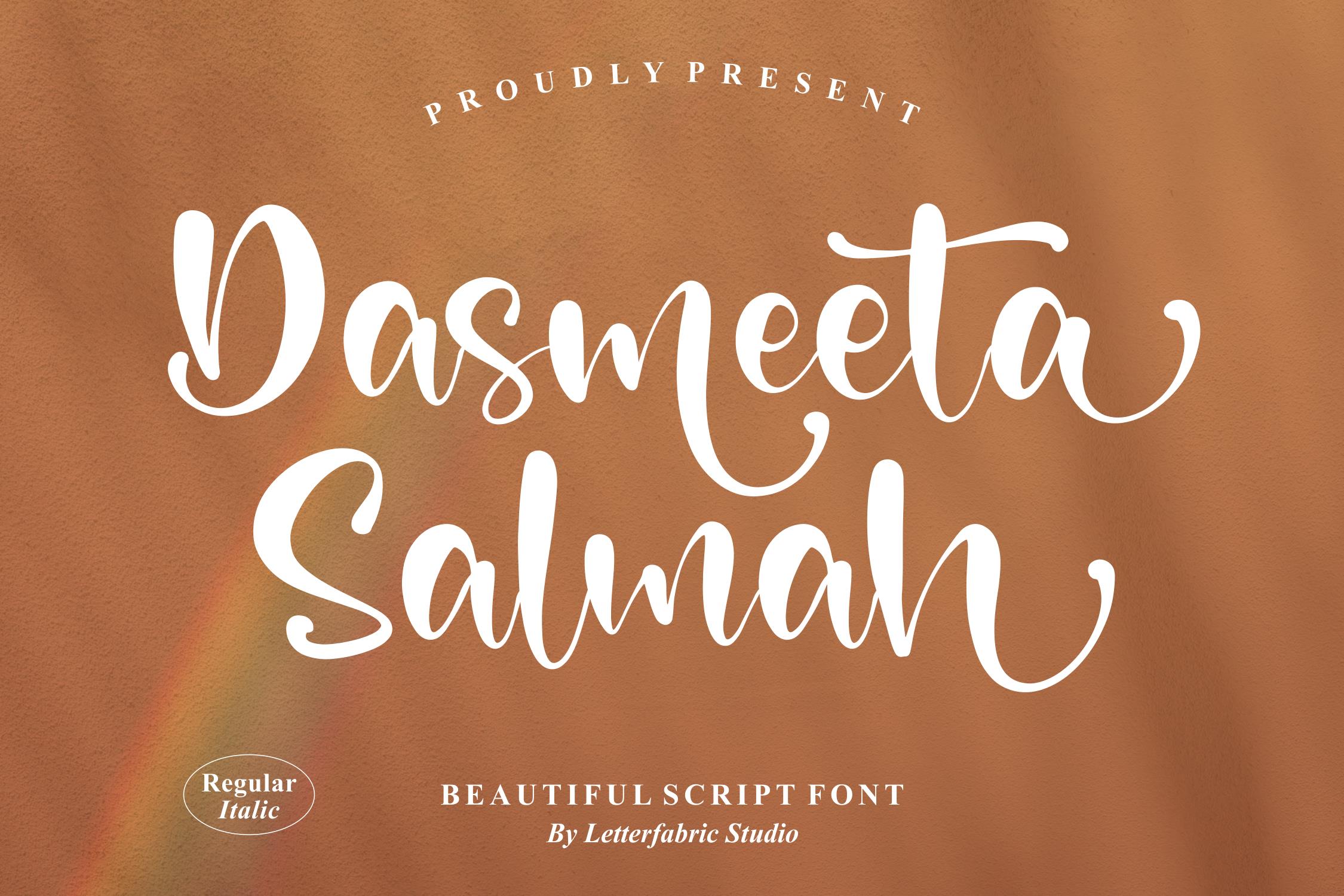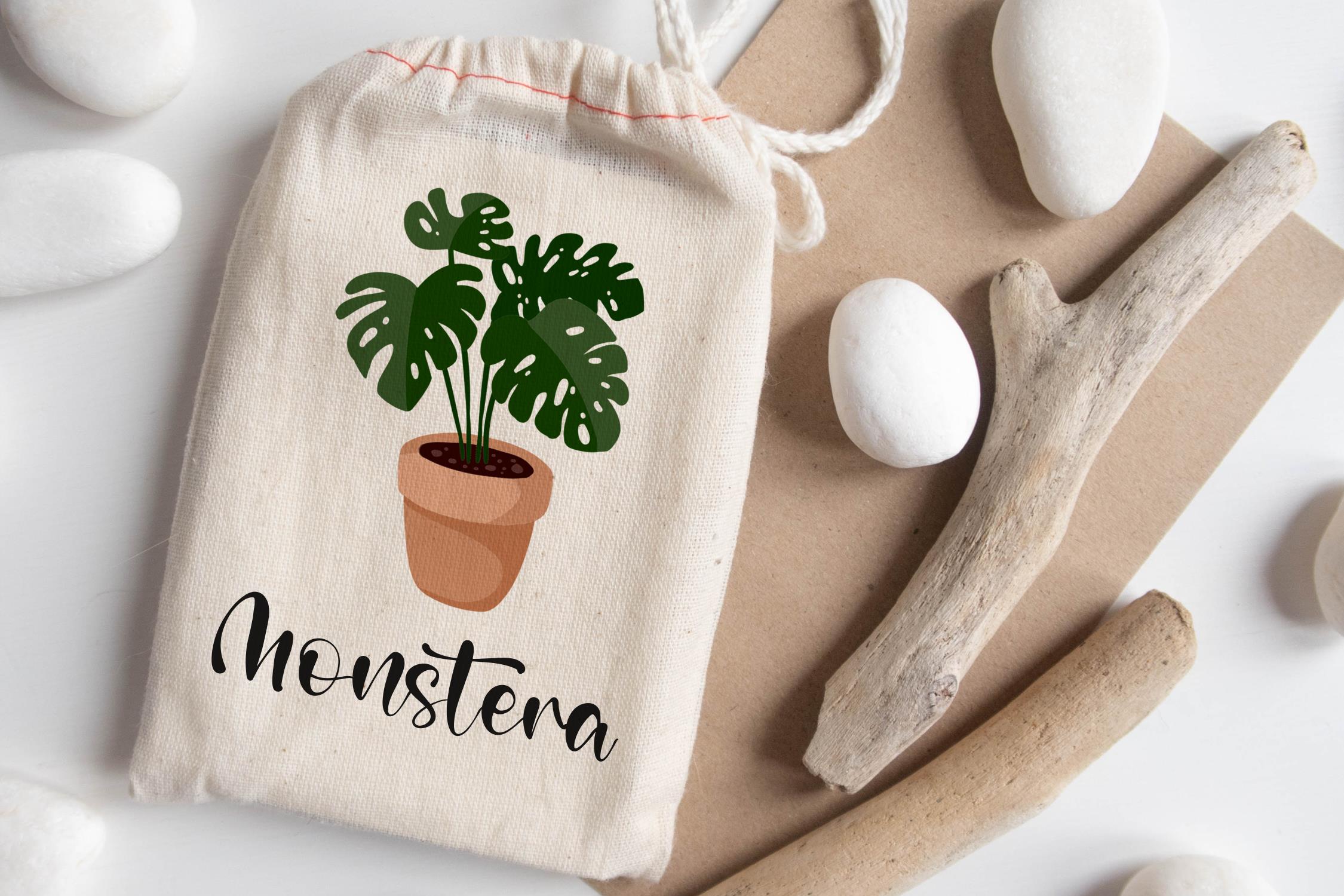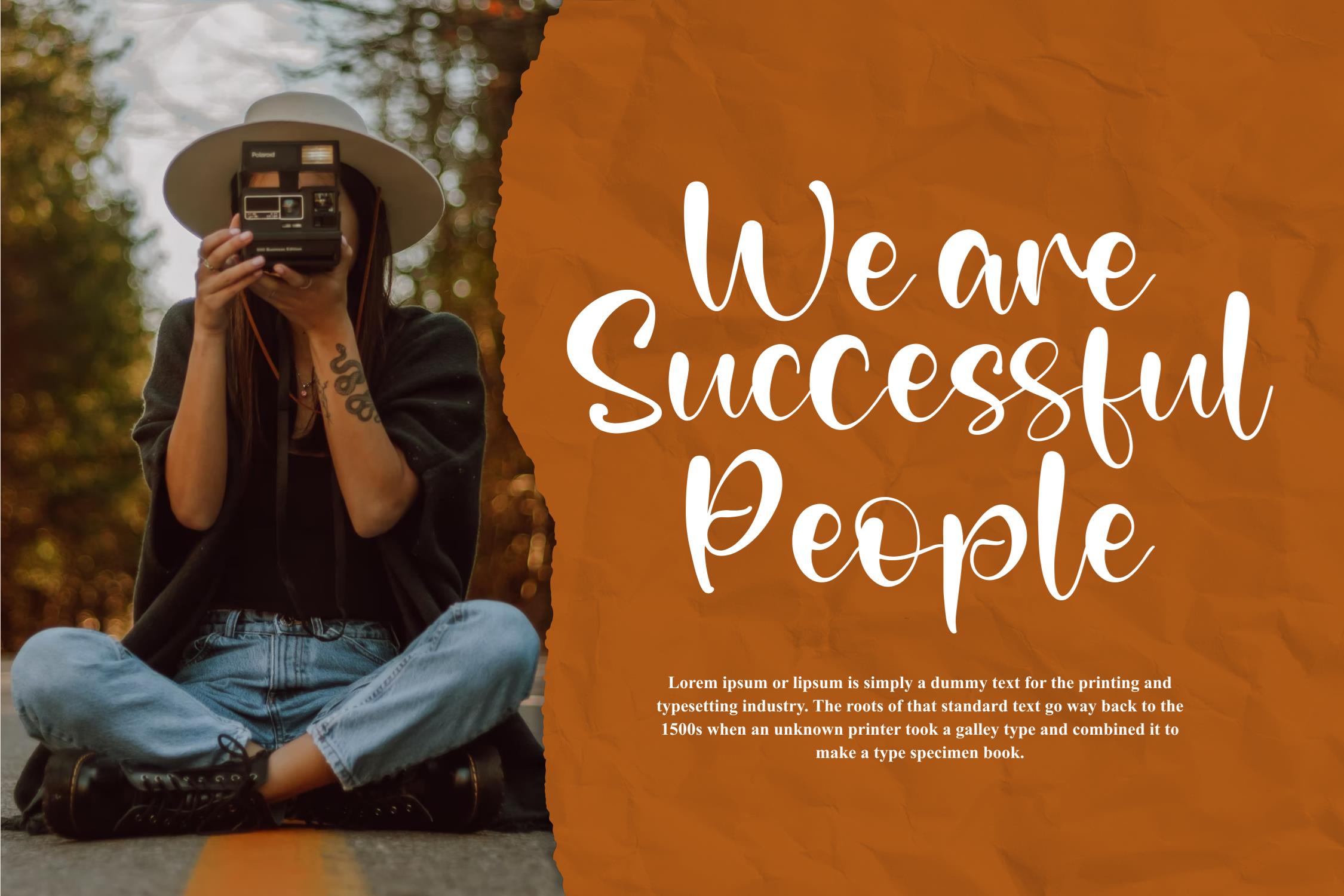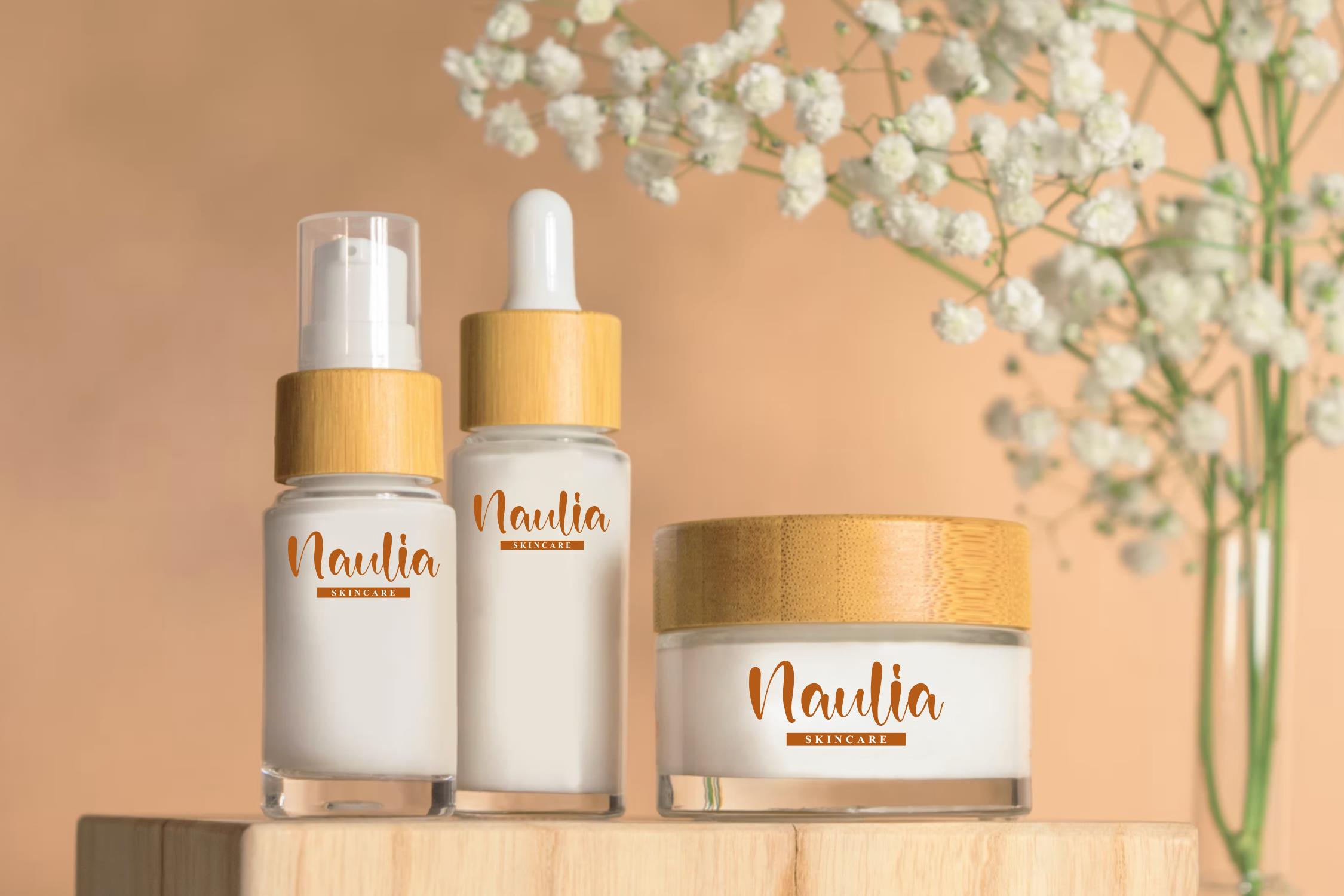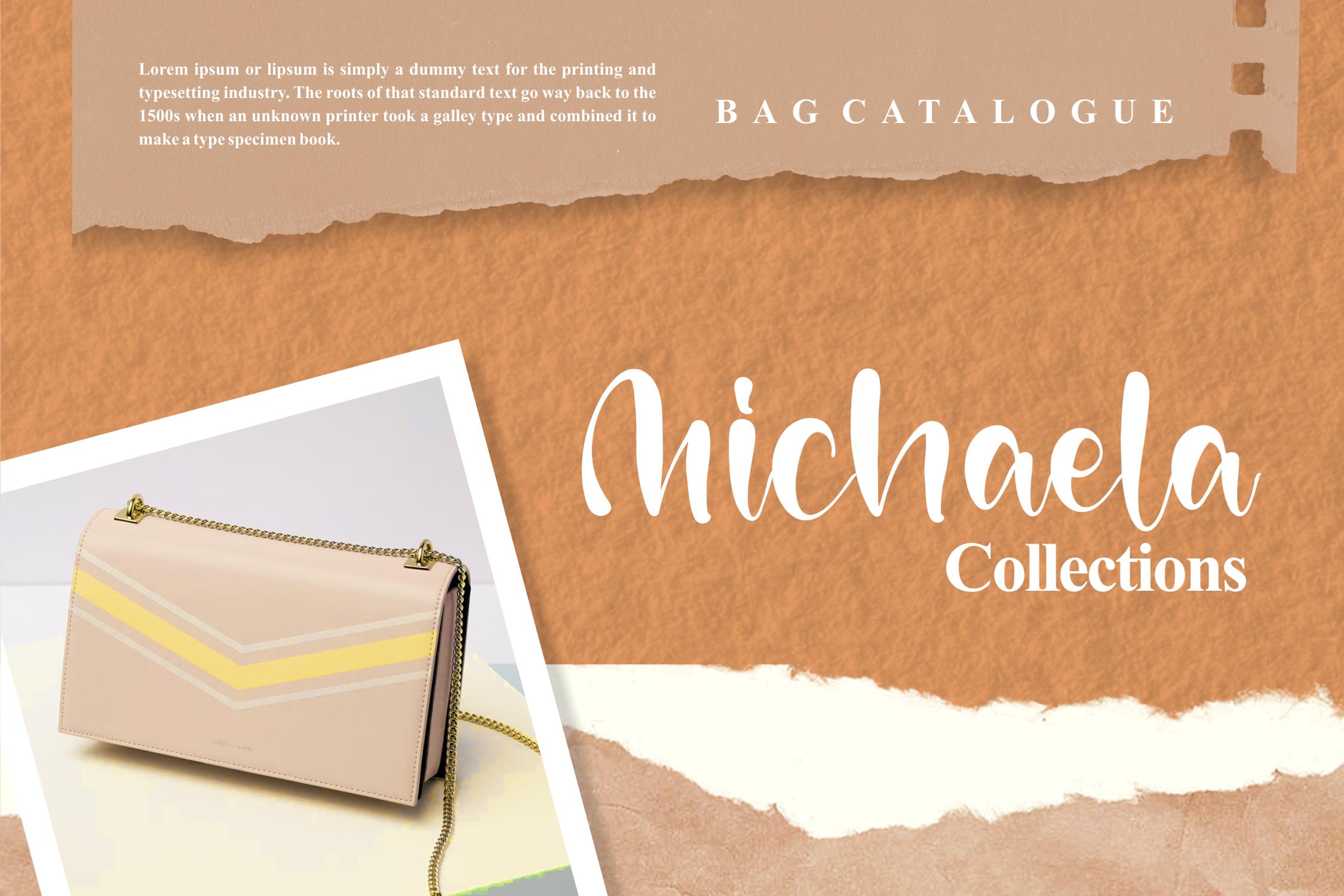
Dasmeeta Salmah Font
Dasmeeta Salmah Font – Beautiful Script Font,from Letterfabric Studio, is a beautiful script font, suitable for any projects such as: logos, branding projects, homeware designs, product packaging, mugs, quotes, posters, shopping bags, t-shirts, book covers, name card, invitation cards, greeting cards, label, photography, watermark, special events, and all your other lovely projects that need a beautiful script taste.